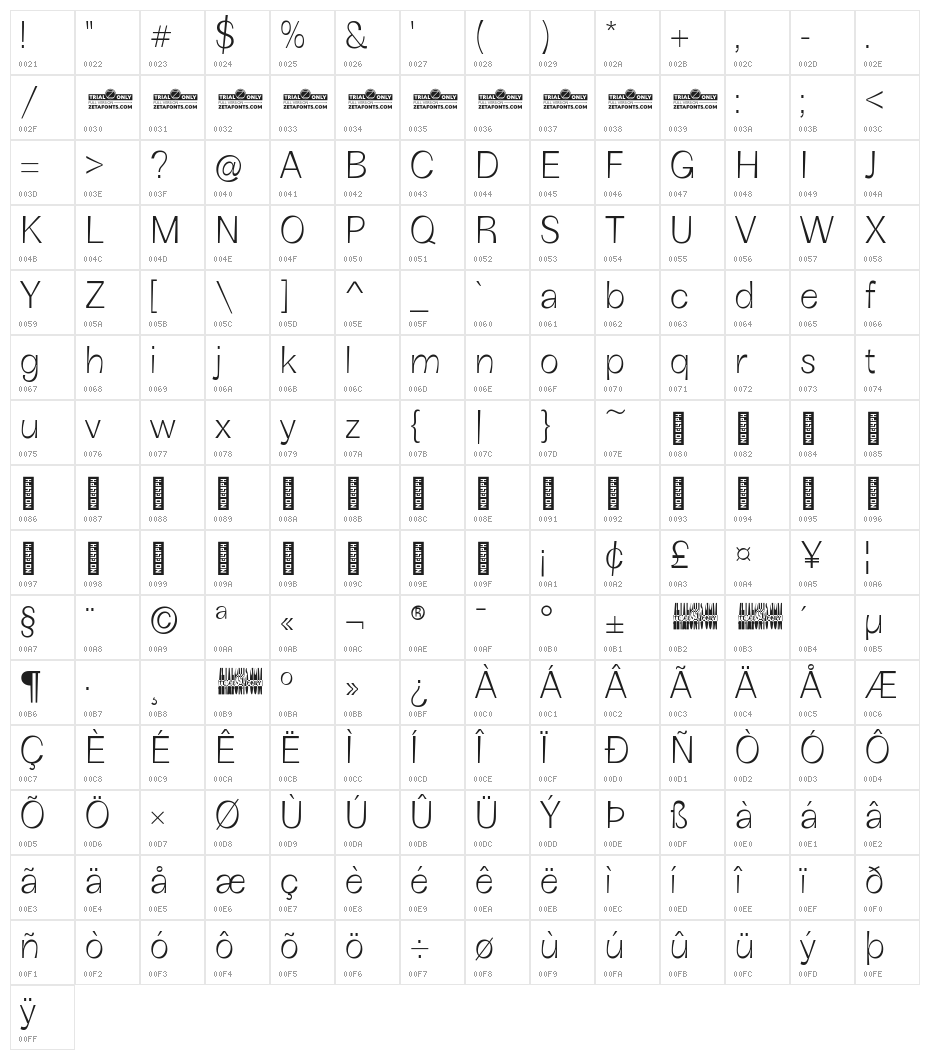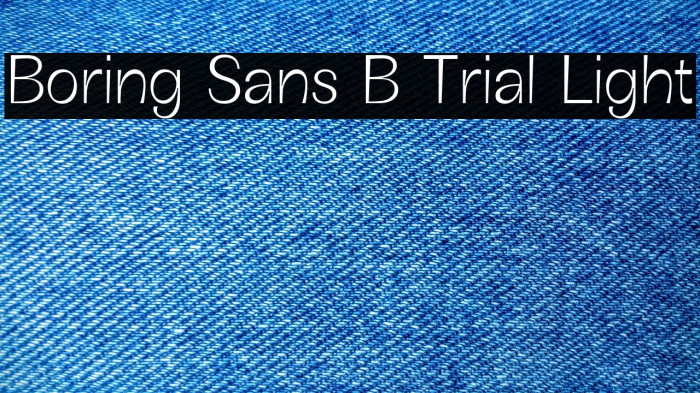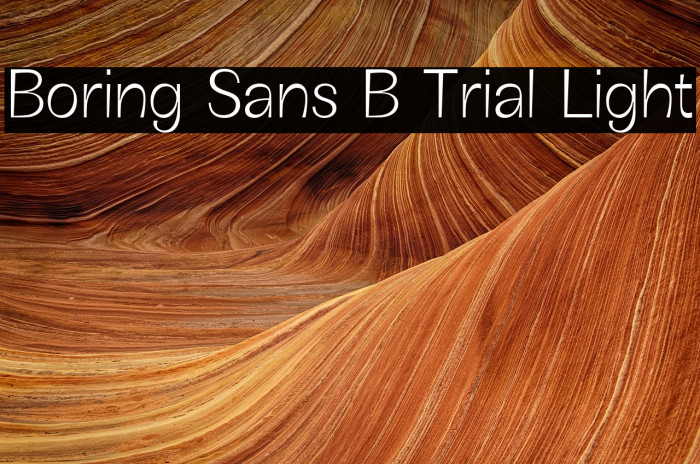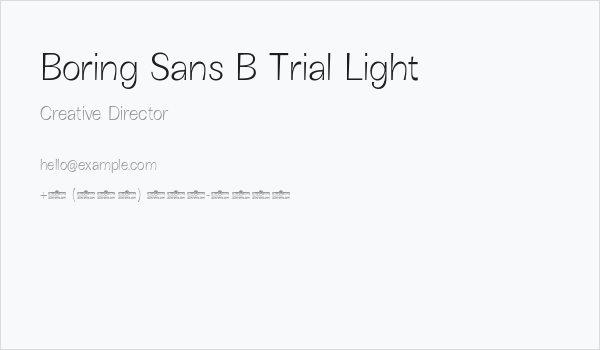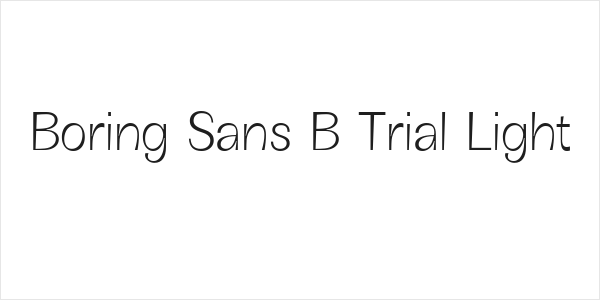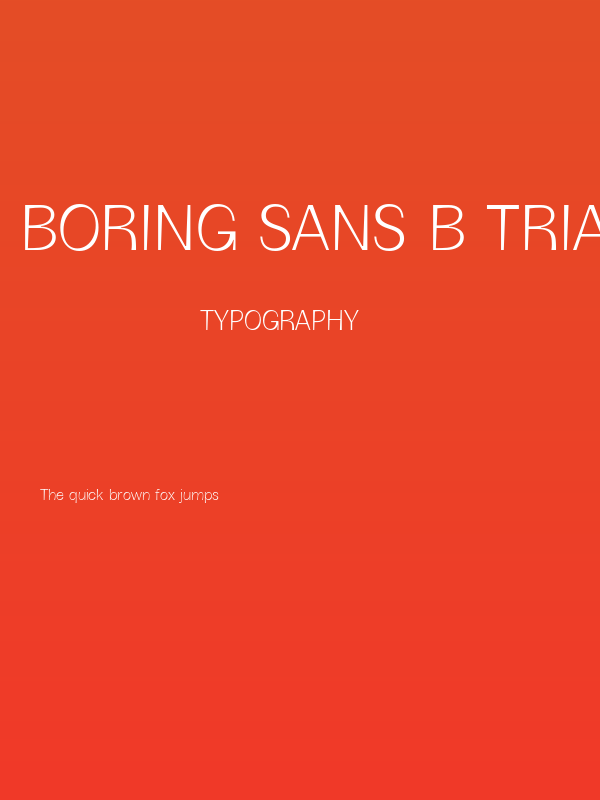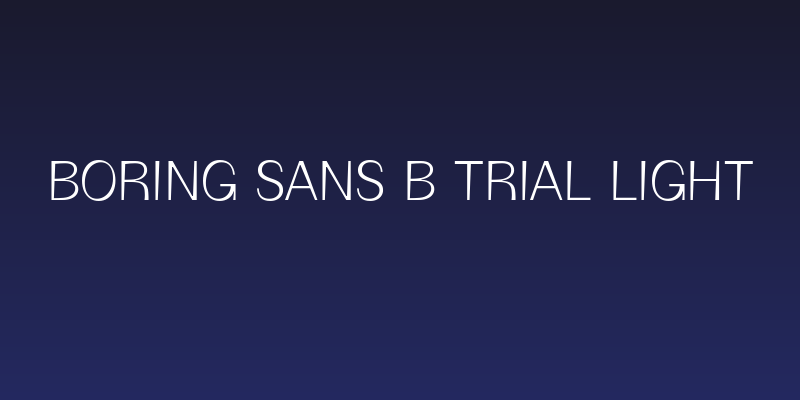
Boring Sans B Trial Light Font
Boring Sans B Trial Light Description
This font features a clean and modern sans-serif design, characterized by its light weight and minimalistic style. The characters are evenly spaced with a consistent stroke width, providing a sleek and professional appearance. The uppercase and lowercase letters maintain a uniform height, contributing to its readability. The numerals and special characters are designed to complement the alphabet, ensuring a cohesive look across all text elements. This font is versatile, suitable for both digital and print media, and can be used effectively in various design projects.